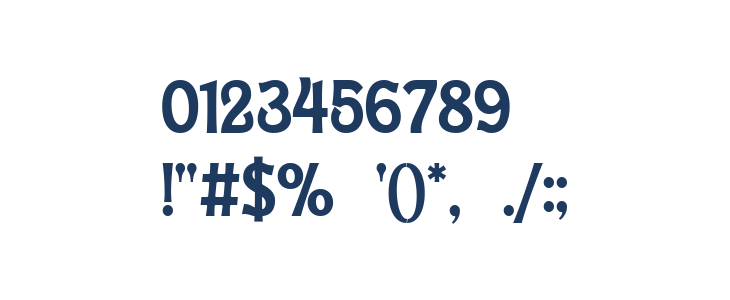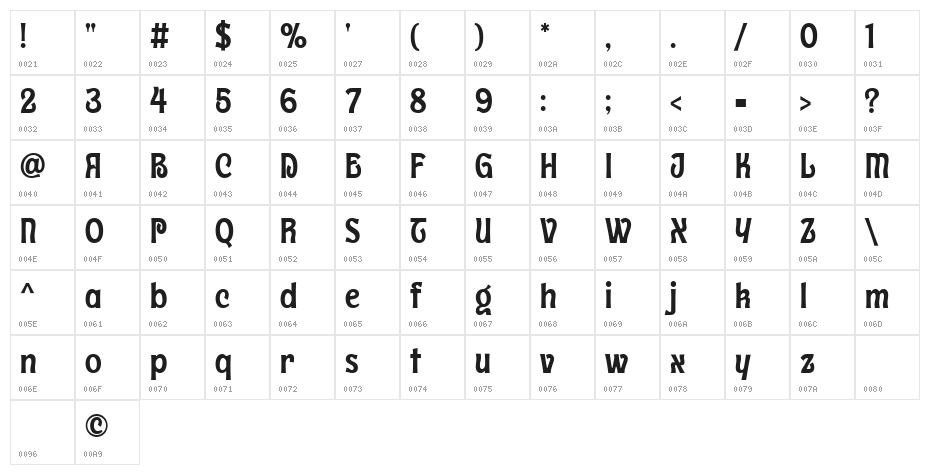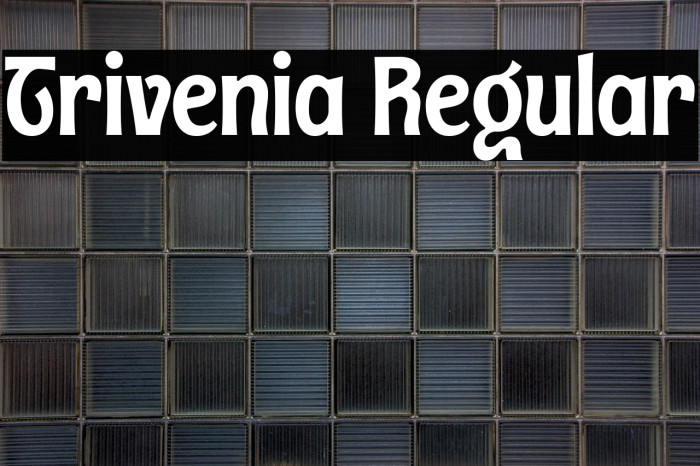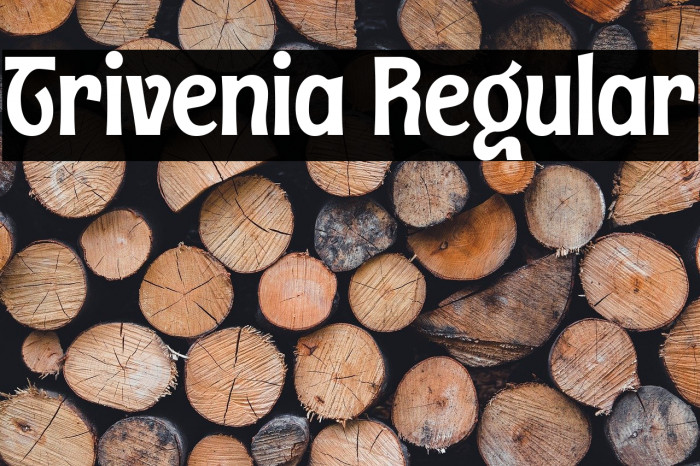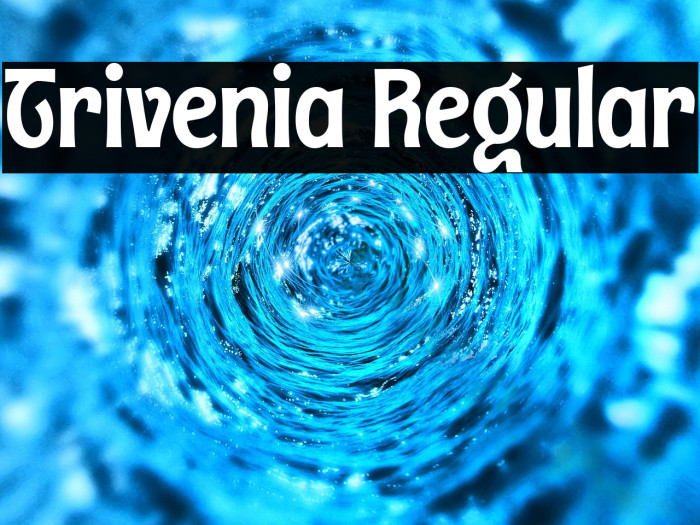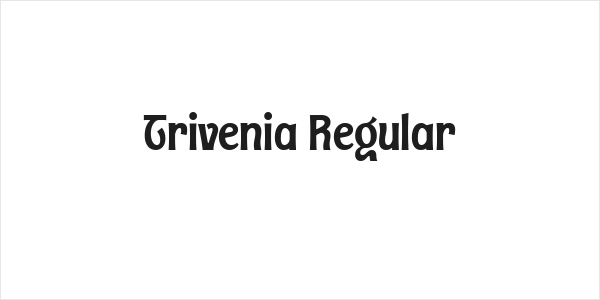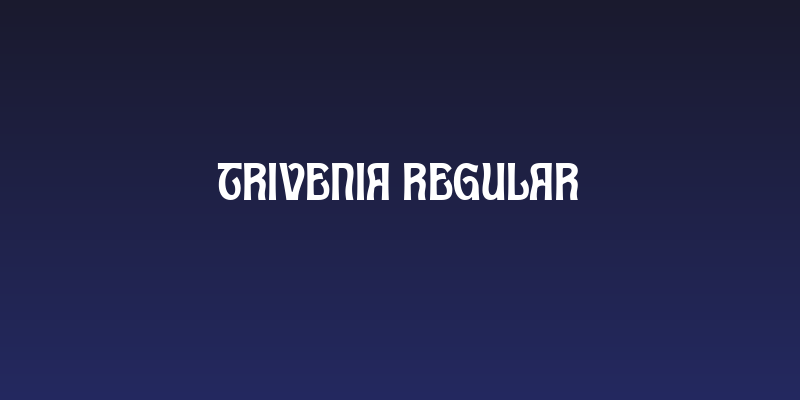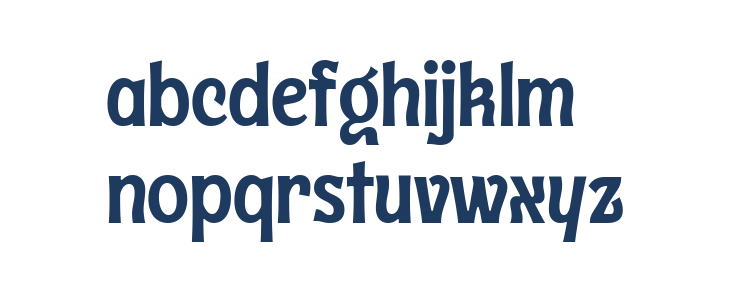
Trivenia Regular Font
Trivenia Regular Description
This font features a bold and playful design with a unique, whimsical flair. The characters are slightly condensed with a moderate stroke contrast, giving it a lively and dynamic appearance. The uppercase letters have a distinct, curvy style, while the lowercase letters maintain a consistent flow. The numerals are bold and easily readable, complementing the overall playful aesthetic. Special characters are creatively designed, adding to the font's decorative nature.